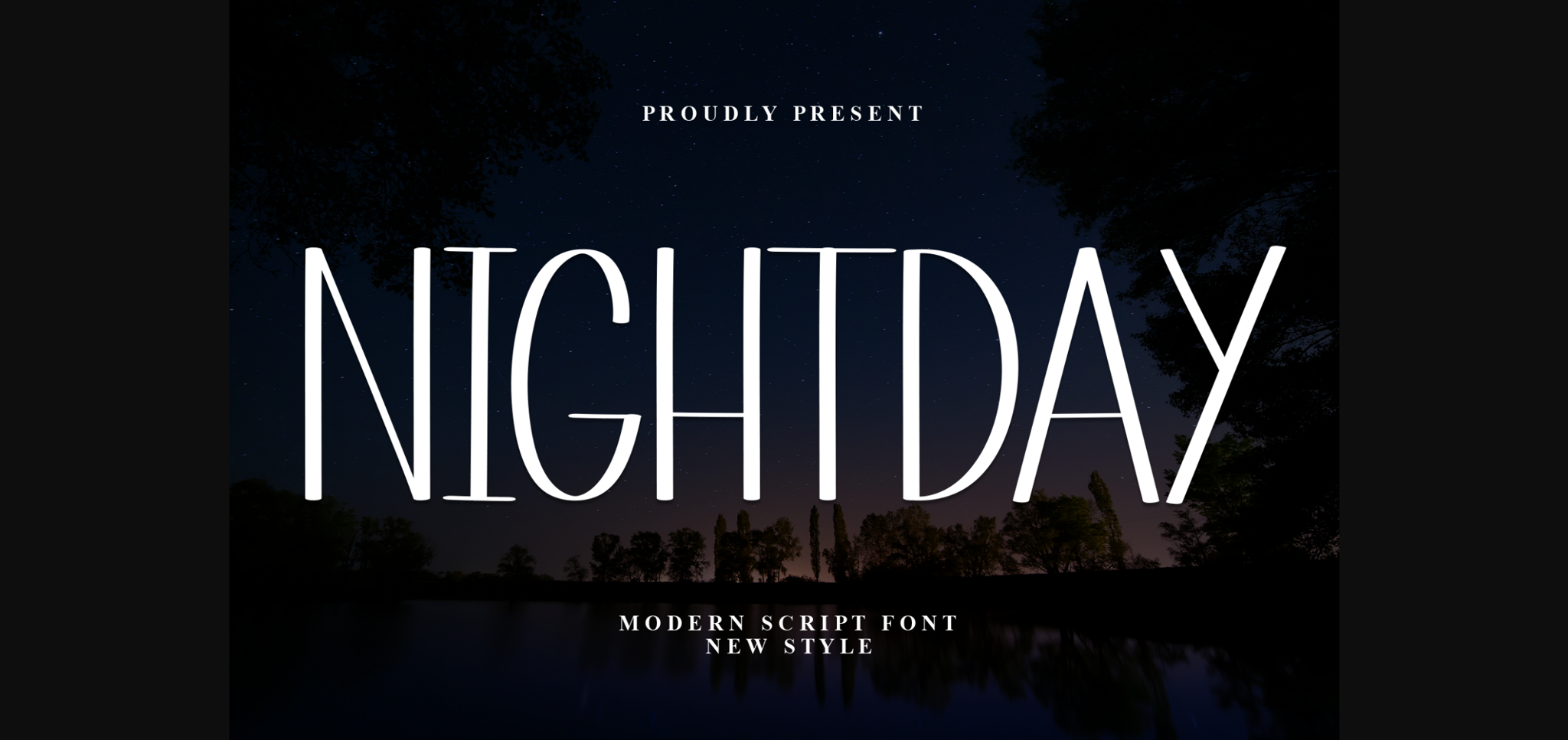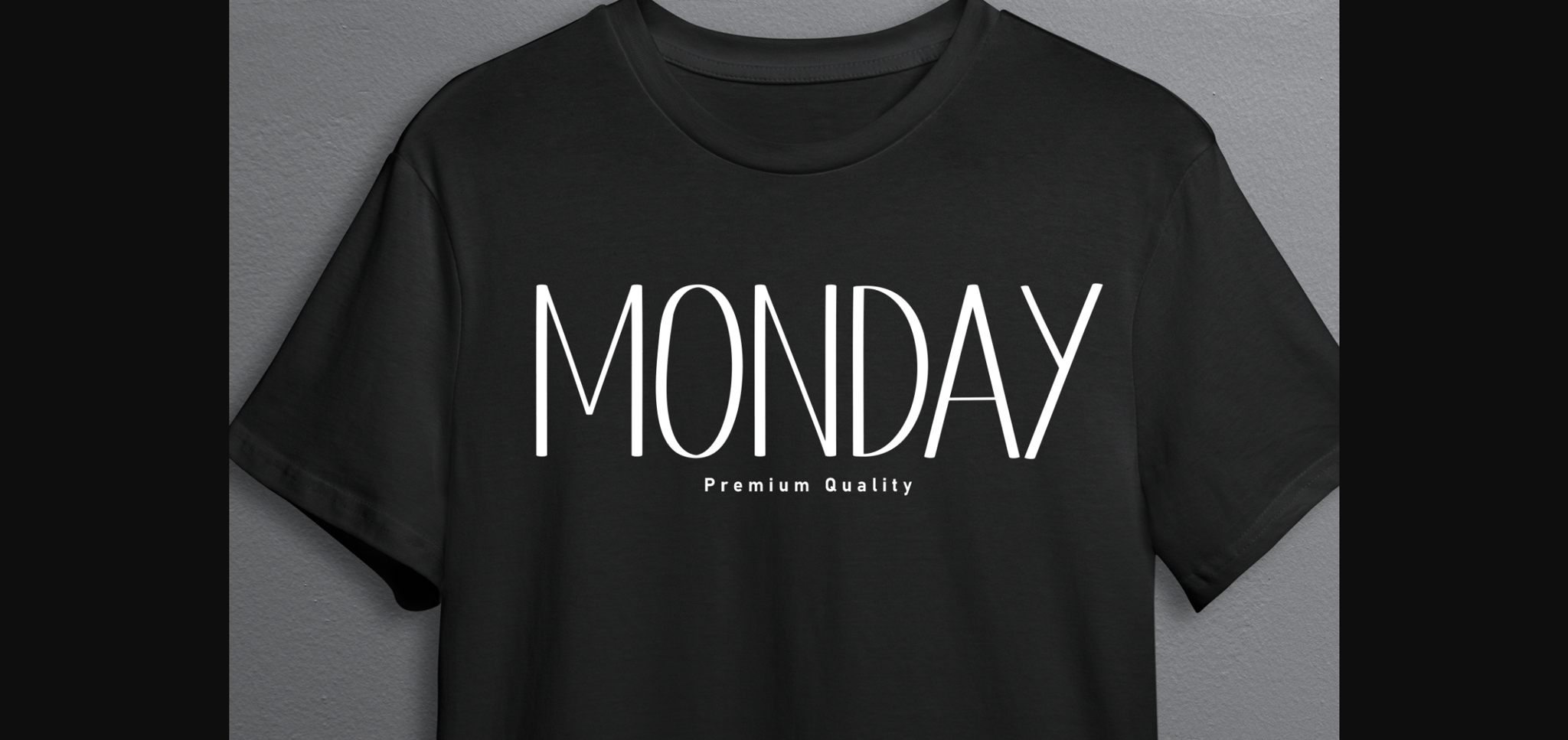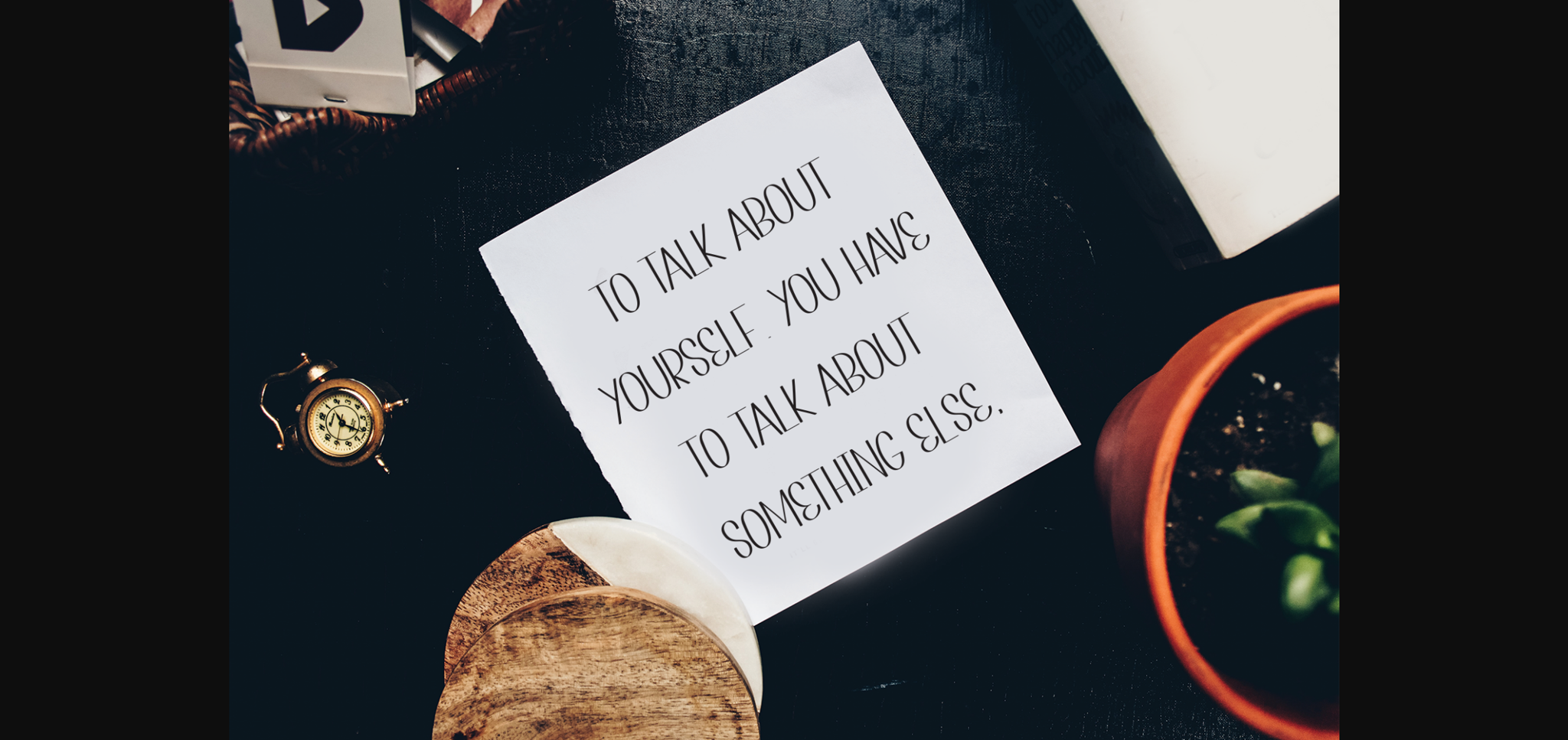
About Nightday Font
Nightday is a thin sans-serif font that epitomizes modern simplicity with grace. Its clean lines and slender letterforms offer a sleek, contemporary aesthetic. Ideal for projects that demand subtlety and clarity, Nightday brings an understated elegance to your designs, ensuring a refined and timeless appeal.